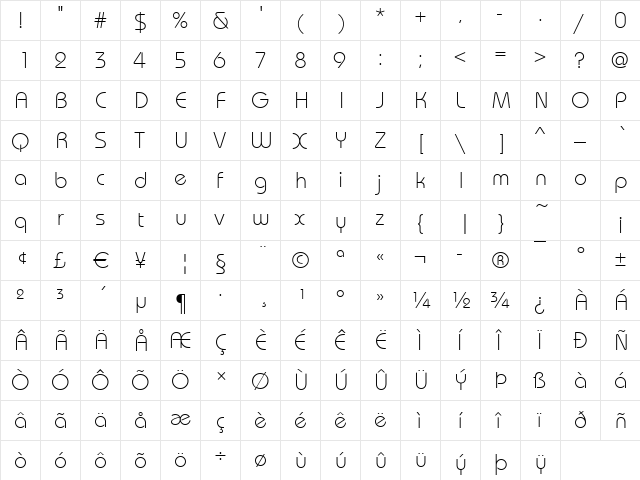
Dessau-Light Regular
Design Context for Dessau-Light Typeface
Dessau-Light takes a measured approach to typography — its balanced proportions and neutral character make it a reliable workhorse for both digital and print work. Its slender proportions lend an understated elegance to any composition.